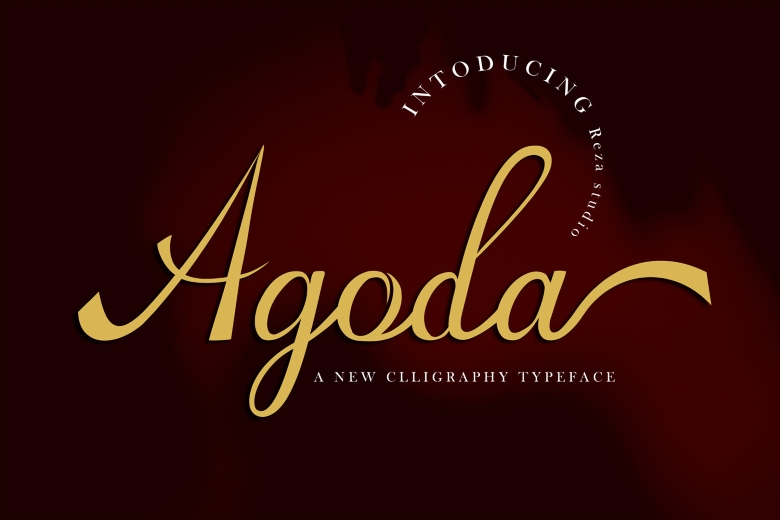
Agoda Font
Agoda Font is best for elegant purposes, as it looks very much like a script font with a name ‘Agoda’. If offers a clean/ thin /smooth look and it will be popular in any design that you want to incorporate it into. This has it that Agoda is PUA encoded which makes it possible for you to get to all the glyphs and swashes.
Agoda Calligraphy Font